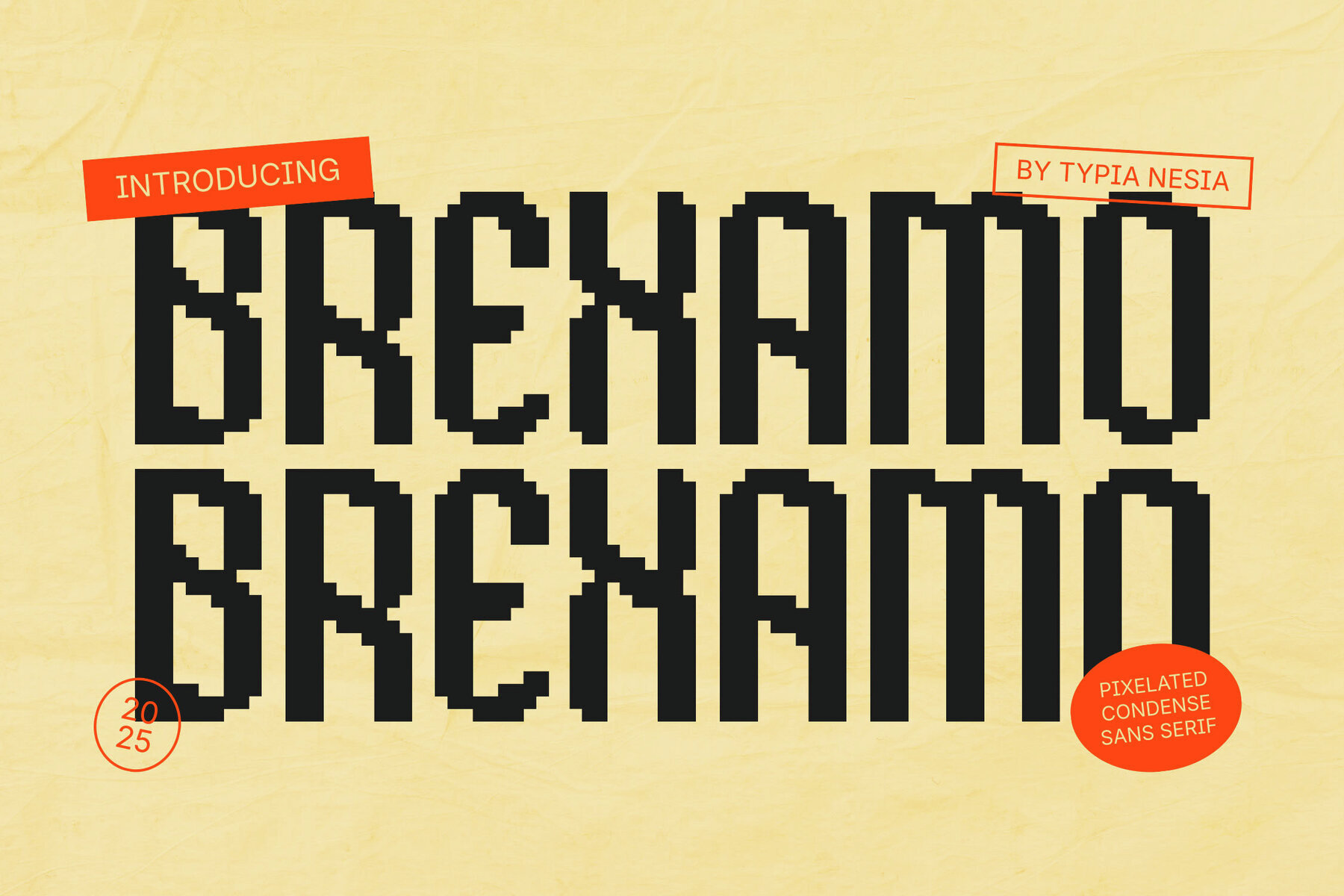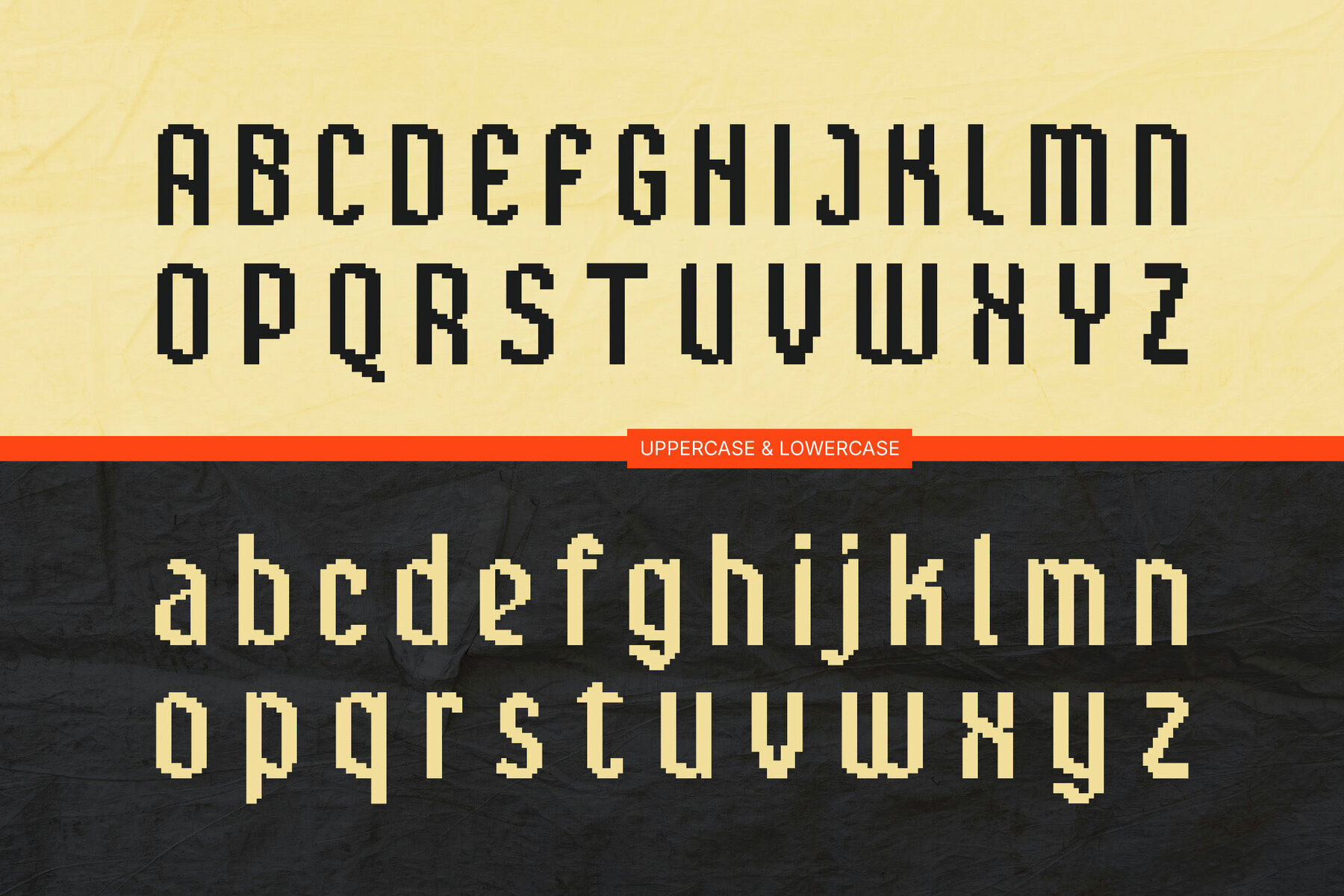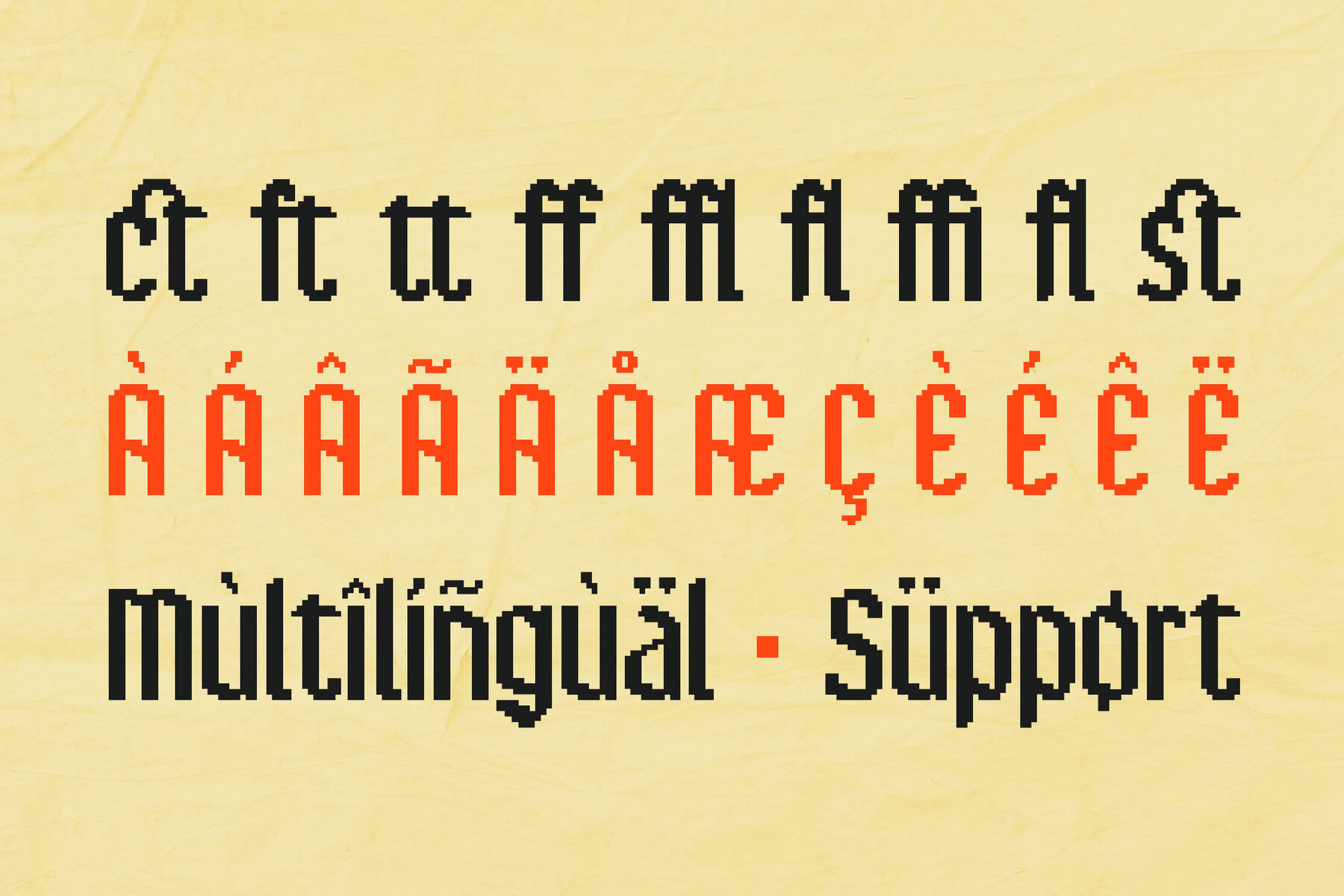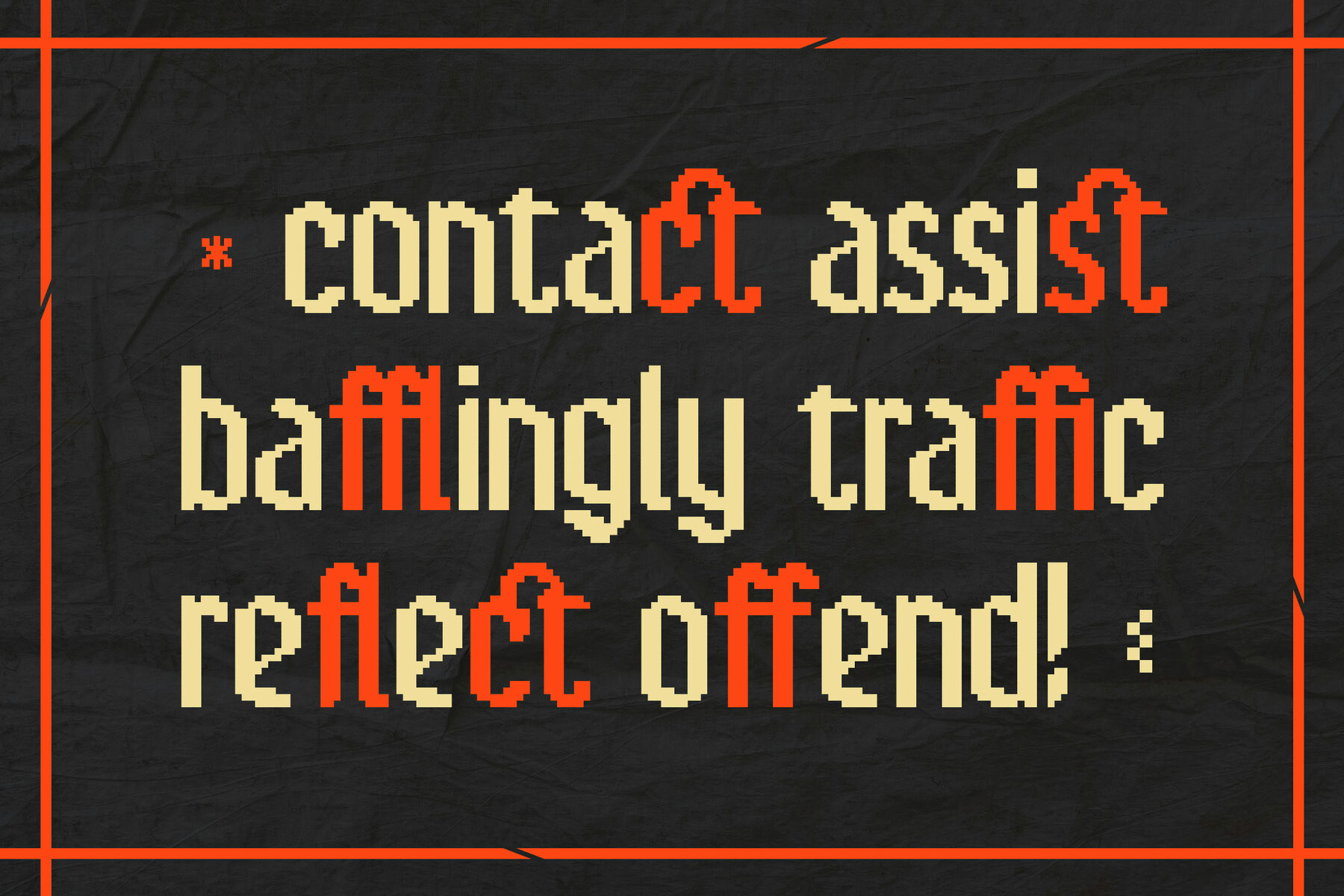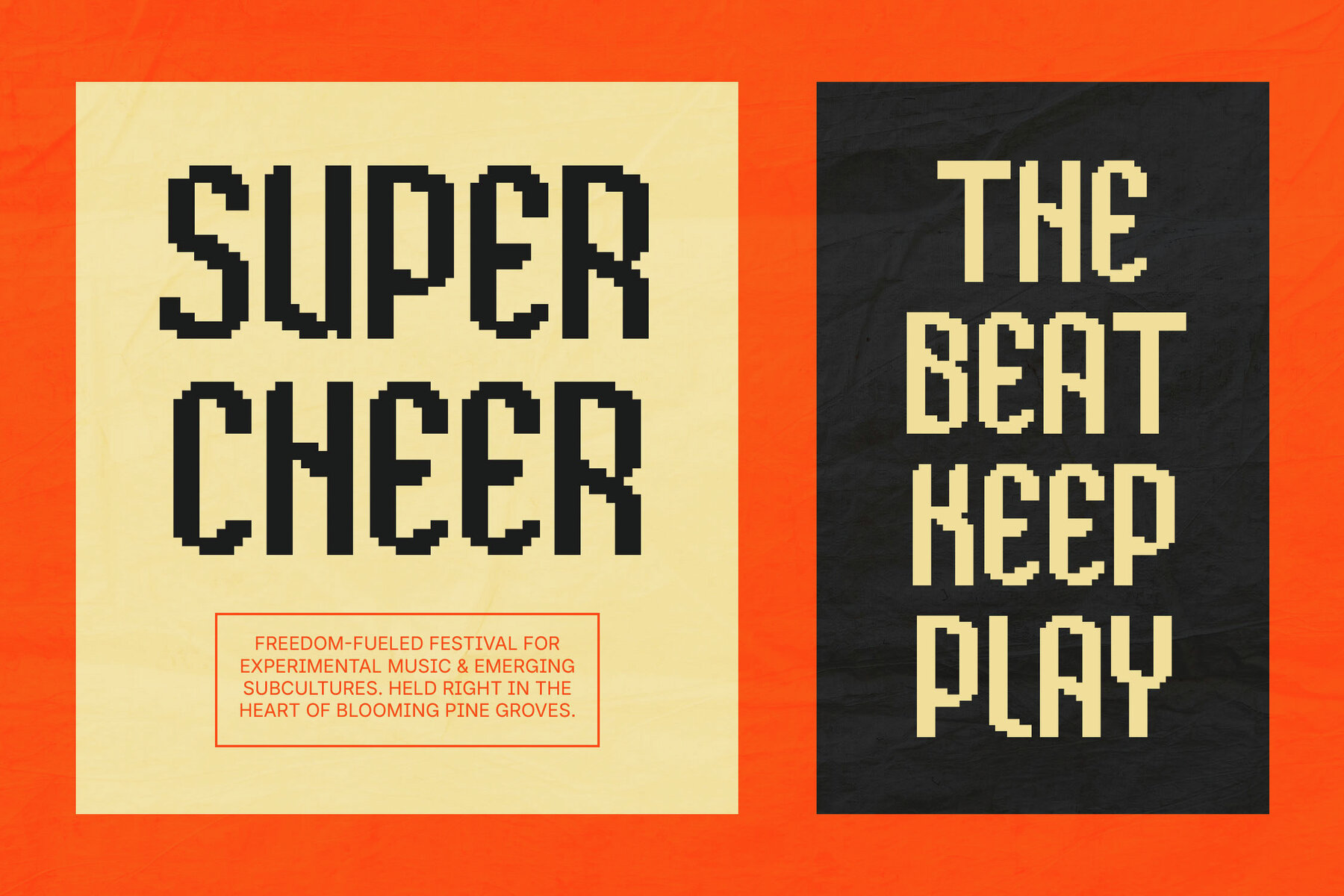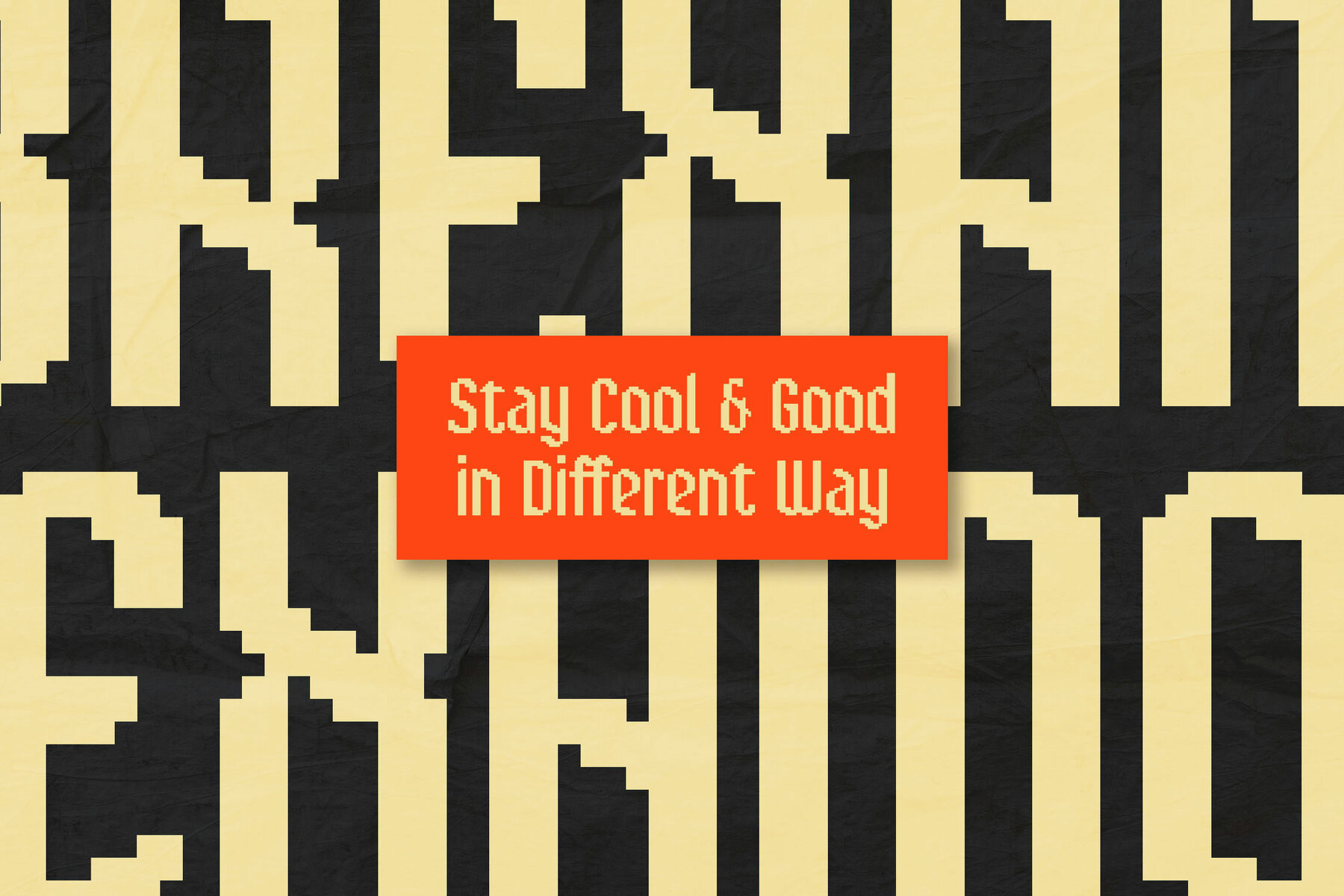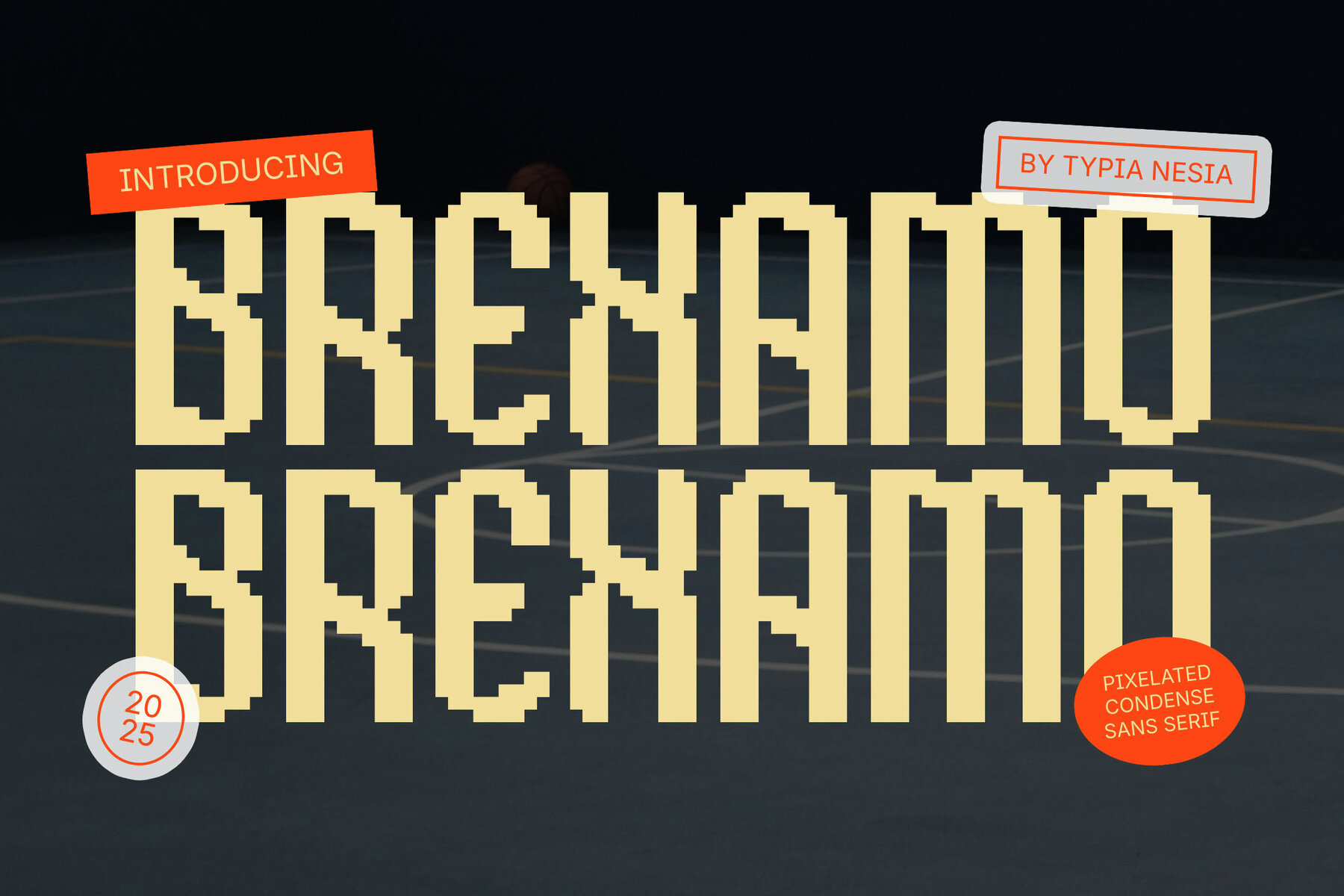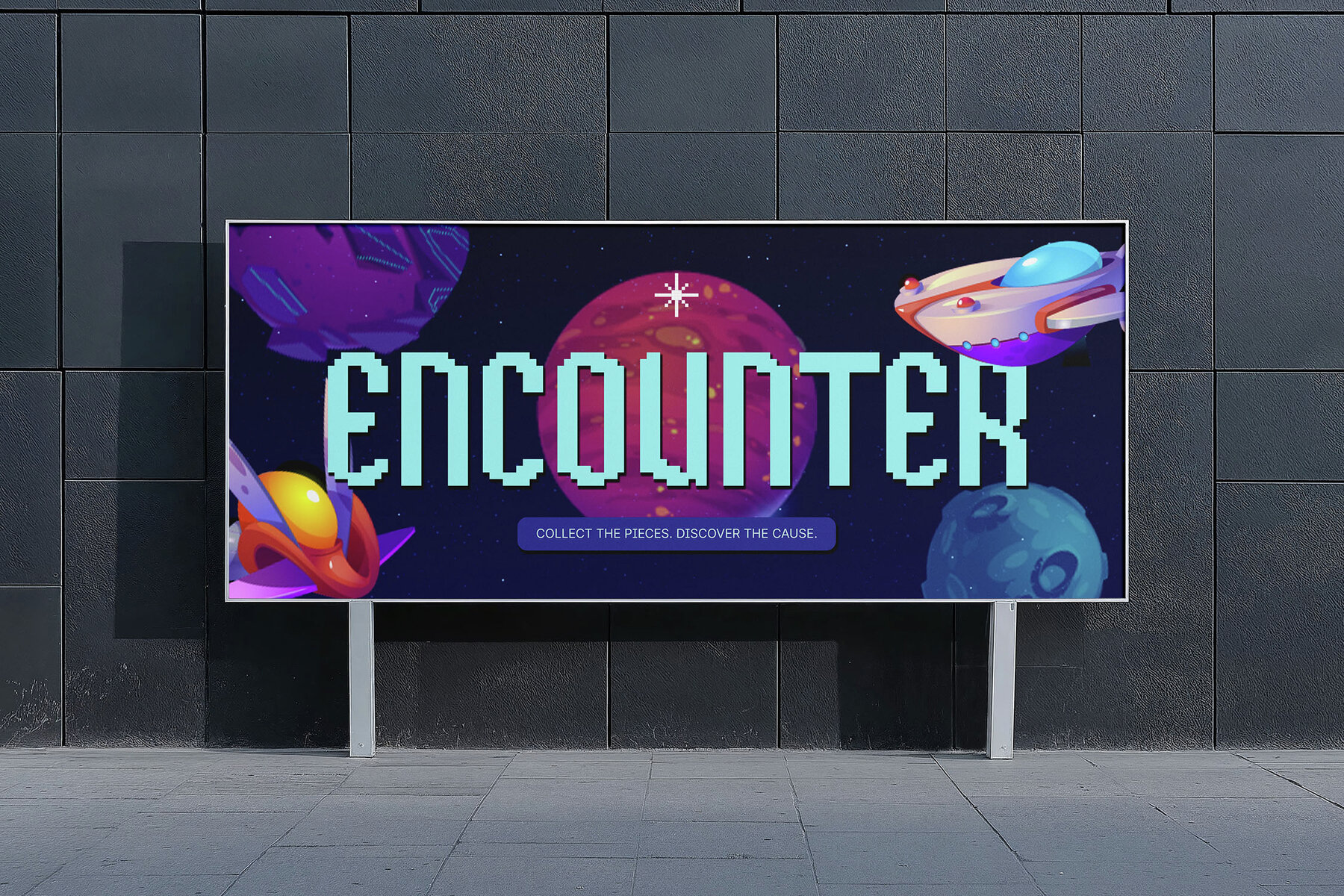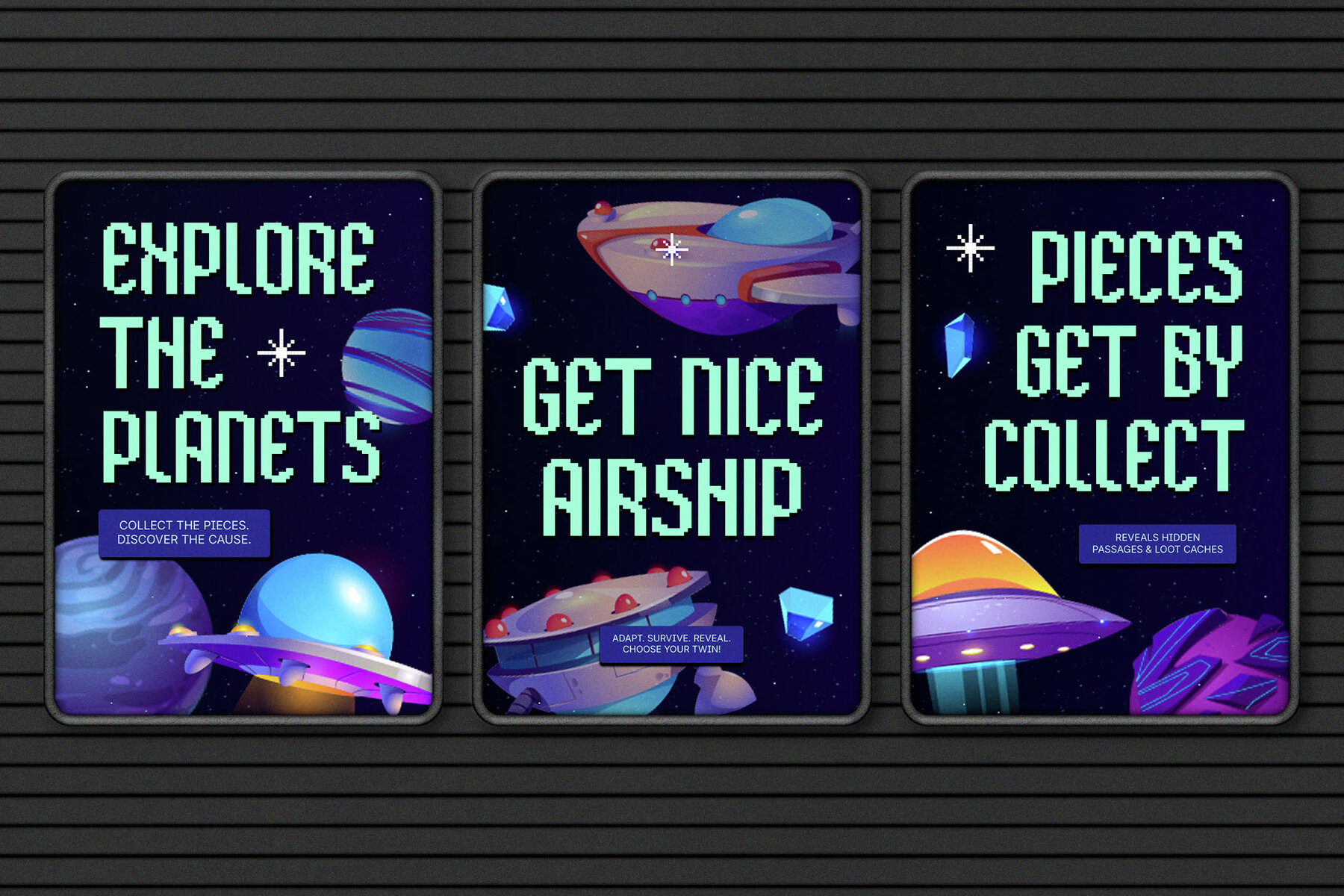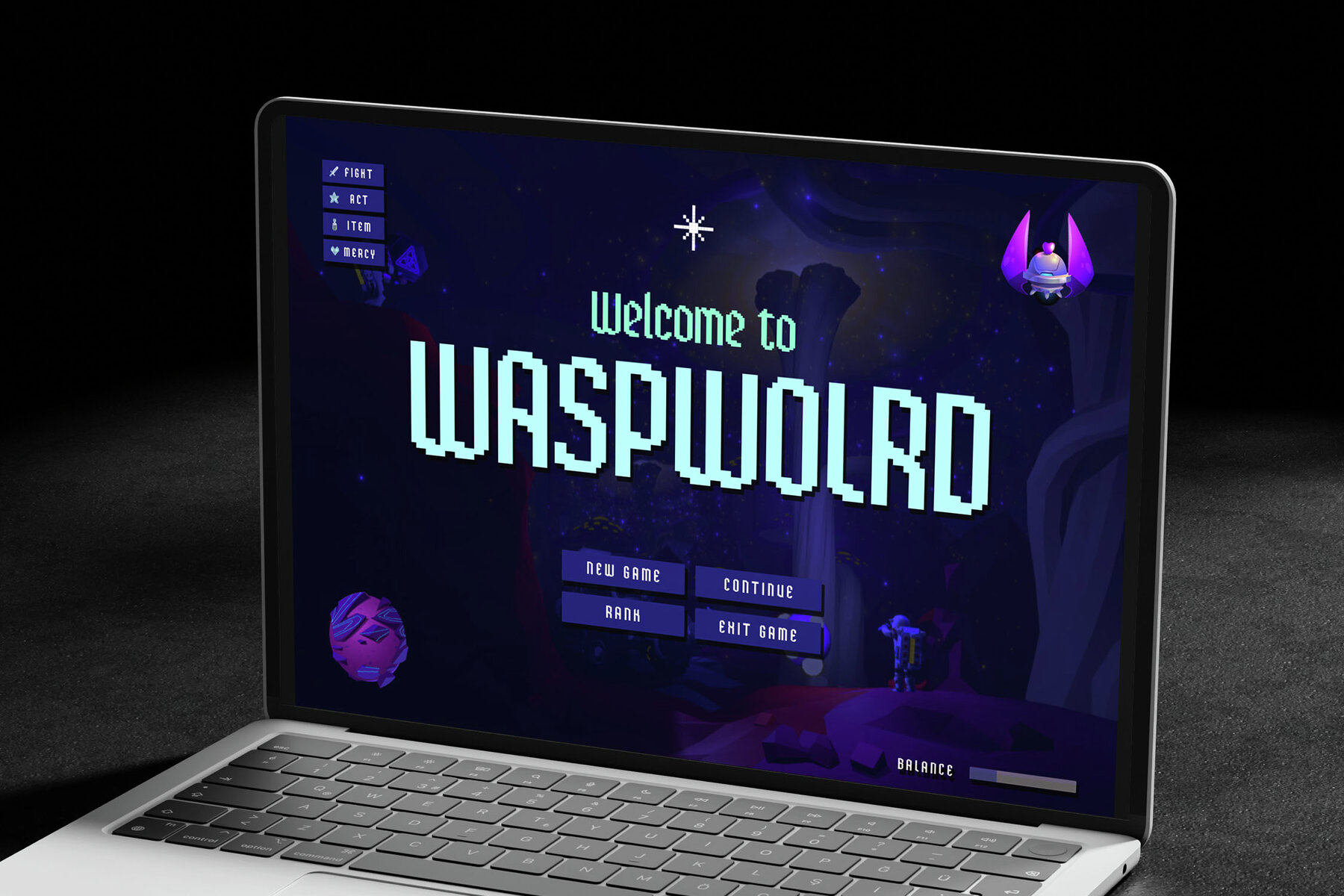
Brexamo Font
Brexamo Regular
Brexamo brings the iconic charm of retro gaming to contemporary digital designs with its innovative pixelated, condensed sans serif style. Its blocky aesthetic pays homage to early video games and 8-bit graphics, while maintaining modern functionality. Brexamo's compact design makes it perfect for game titles, app interfaces, sci-fi branding, and technology advertisements. It's a versatile choice for logo designs and vibrant posters that capture the nostalgia of the digital age. Explore the digital realm with Brexamo and enhance your projects with its unique retro-futuristic flair.Brexamo: Pixelated Condensed Sans Serif Font